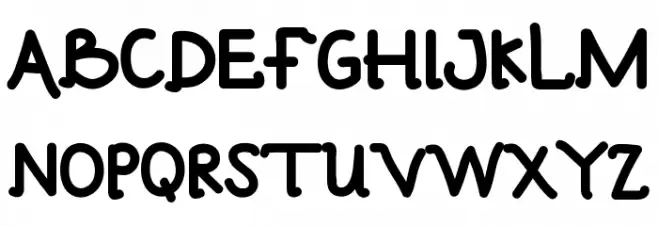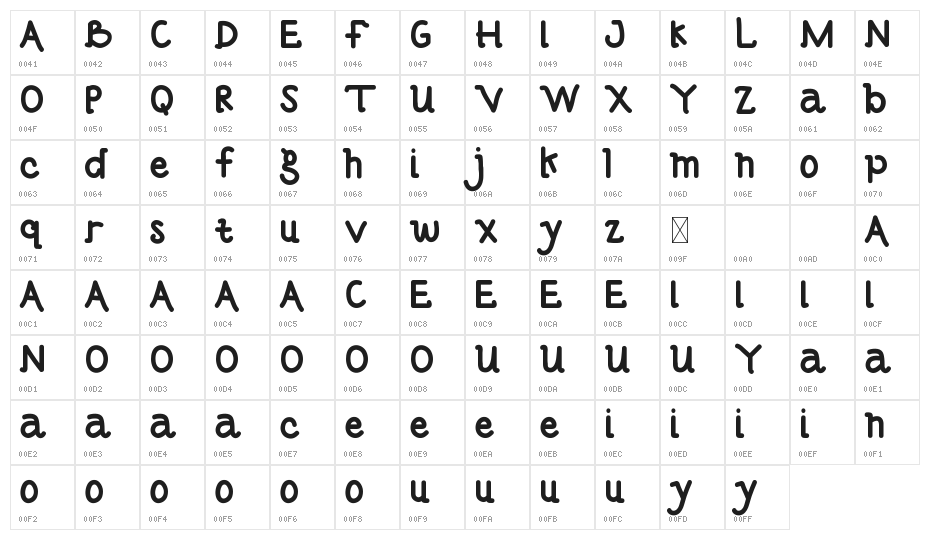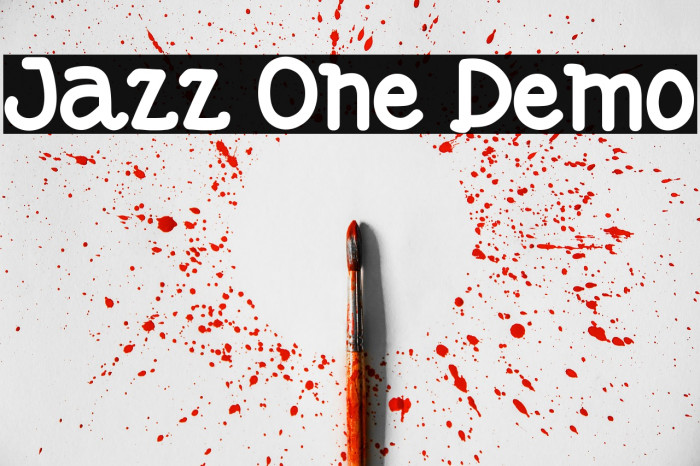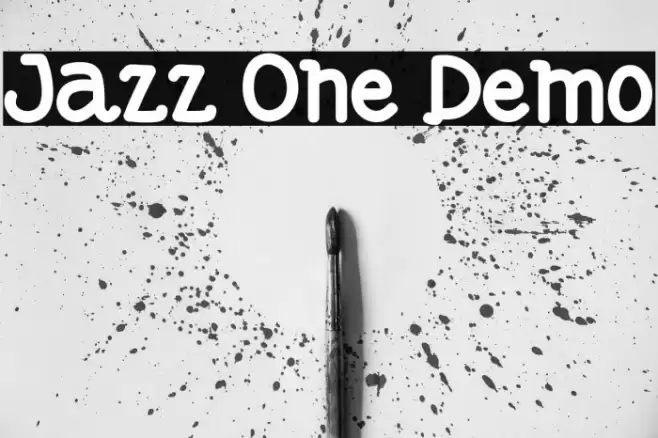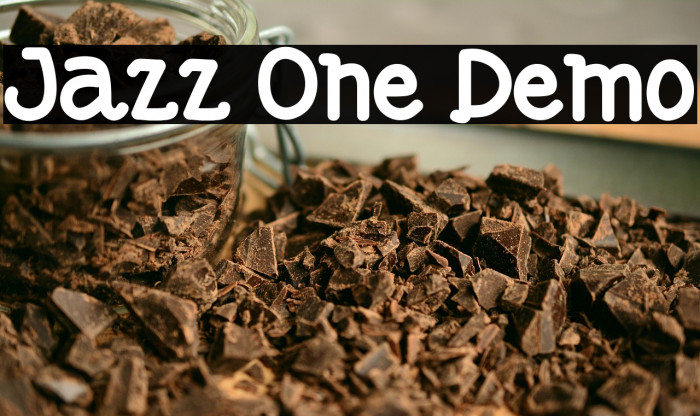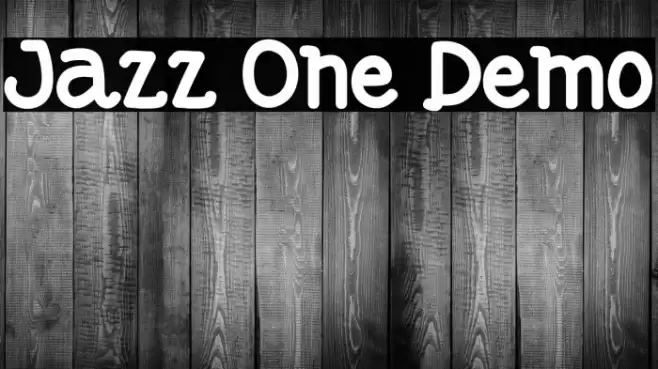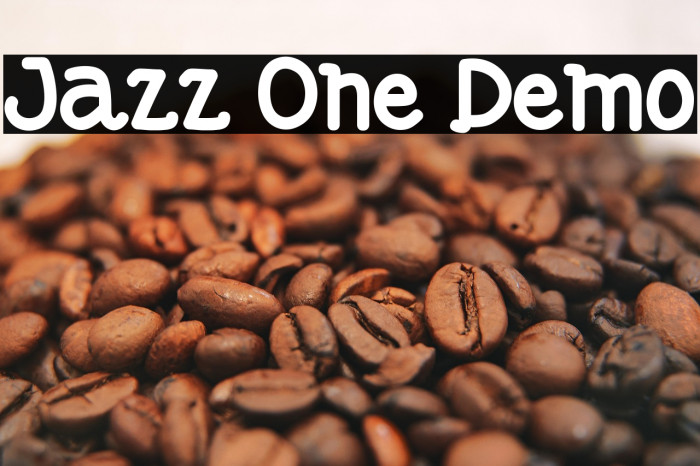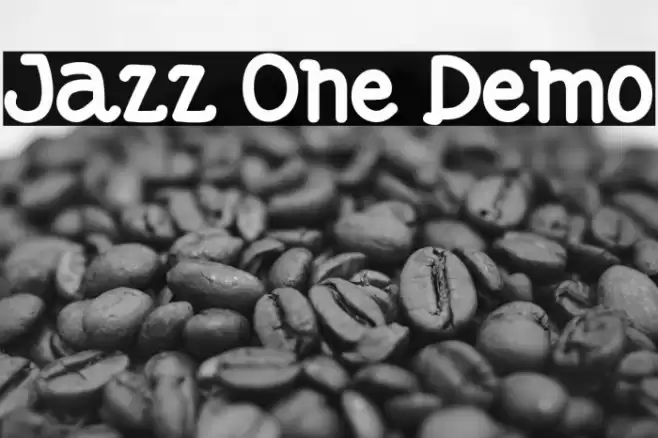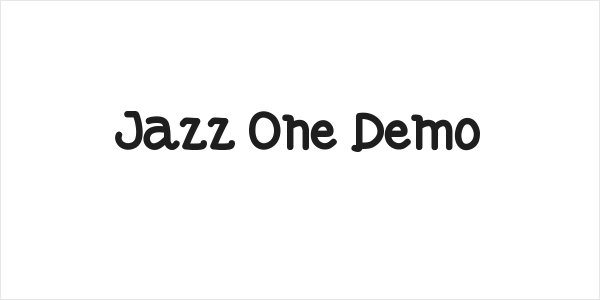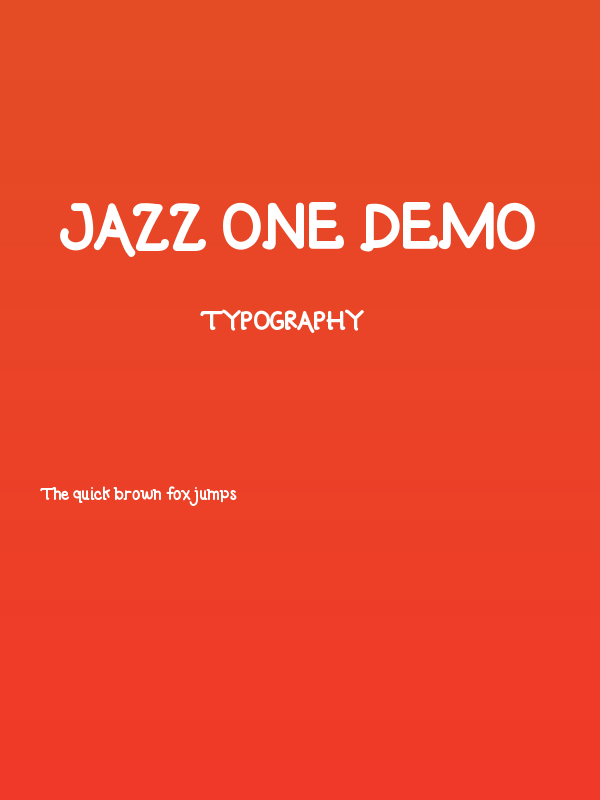
Jazz One Demo Font
Jazz One Demo Description
This font features a playful and bold style with rounded edges and a slightly irregular form, giving it a hand-drawn appearance. The uppercase and lowercase letters are consistent in their whimsical design, making it suitable for creative and informal projects. The characters have a uniform thickness, contributing to a cohesive look. The font's unique personality is evident in its distinctive curves and loops, particularly noticeable in letters like 'g' and 'j'. Its overall appearance is friendly and approachable, making it ideal for projects that require a touch of fun and creativity.
| Overall Style | Playful, Creative |
| Proposed Projects | Ideal for children's books, playful branding, posters, and creative invitations. |